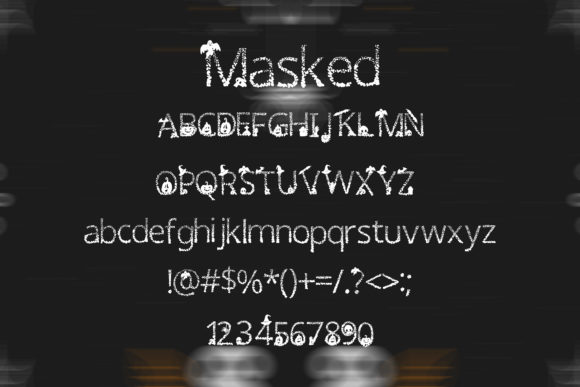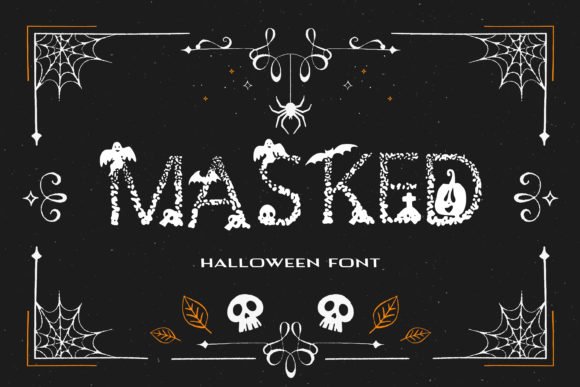
Introduction to Masked Font
Masked is a unique and interesting display font.
A little bit quirky, this font looks incredibly adept on a wide variety of contexts .
Masked Font offers exceptional quality and versatility, making it a valuable addition to your design toolkit. Whether you’re creating for personal projects or commercial use, Masked Font delivers professional results.